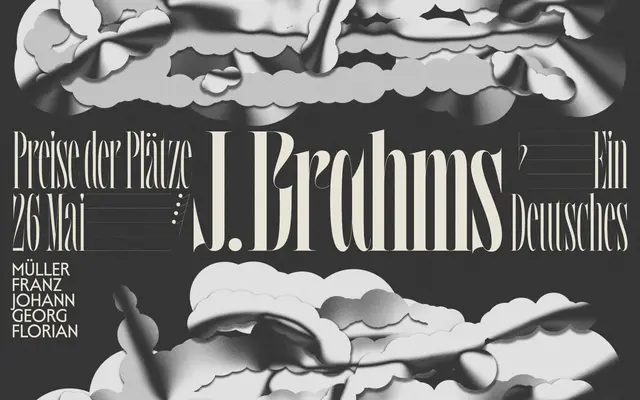
Rhapsody
A Didot-inspired display face by Valerio Monopoli, shaped by research linking musical notation to didone typography and packed with musical glyphs and discretionary ligatures.
Born from Reading University research that traced the design of contemporary musical notation back to Didot's typographic rationale, this eight-weight family reworks those high-contrast letterforms for a musical context. The glyph set includes dedicated musical notation characters alongside lyrical discretionary ligatures, old-style figures and italic shape alternates. At 568 glyphs per style, it is an unusually considered display face for editorial, album and concert-adjacent work.
Rhapsody draws explicitly from Didot's typographic structure, reinterpreting the high-contrast, rational skeleton of the didone tradition through a modern, music-influenced lens suited to display use.